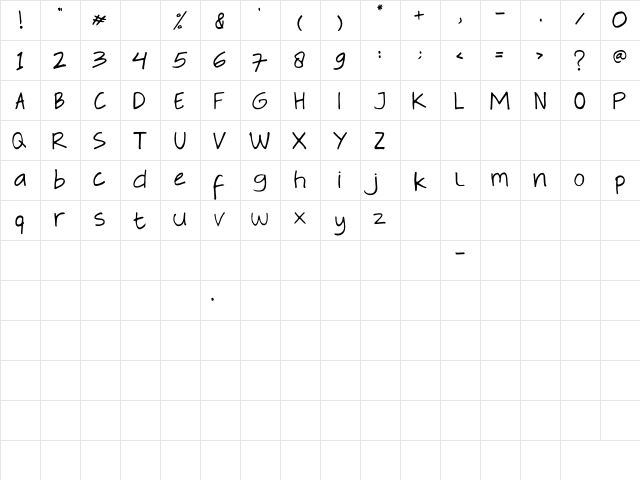
Flavors Heart Regular
| Designer | SOFYAN |
Design Context for Flavors Heart Typeface
Flavors Heart is a composed and adaptable typeface that performs quietly and consistently across a wide range of design contexts.